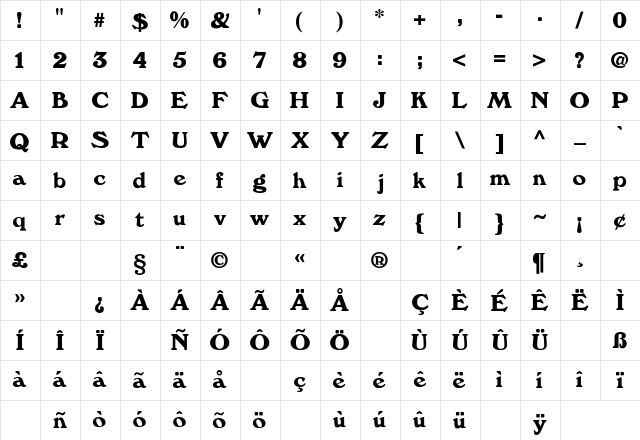
Tudor Regular Free Font
Tudor Regular
Design Context for Tudor
Tudor is a composed and adaptable typeface that performs quietly and consistently across a wide range of design contexts.